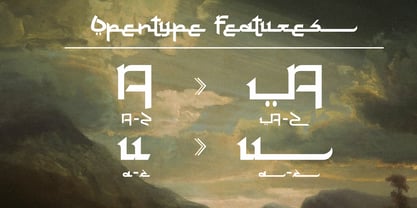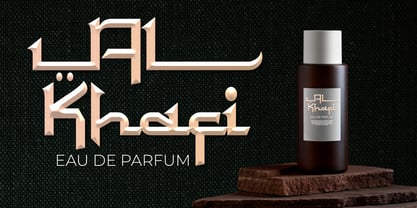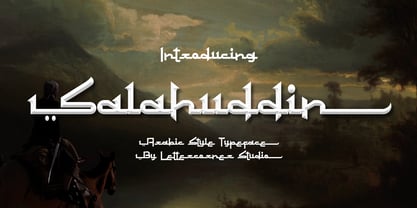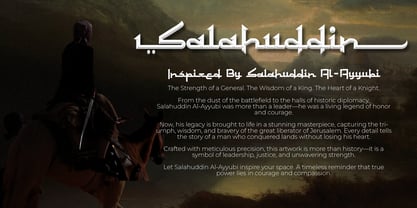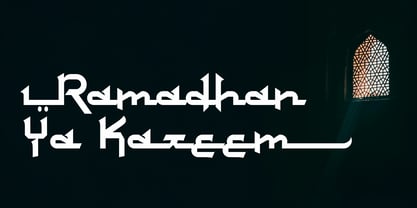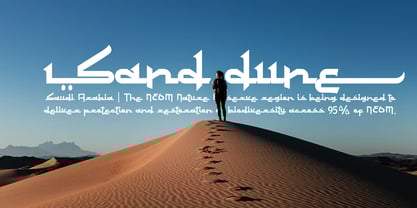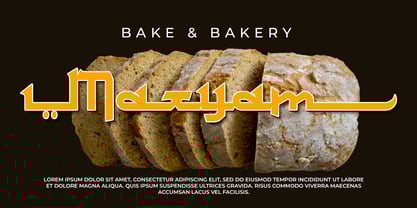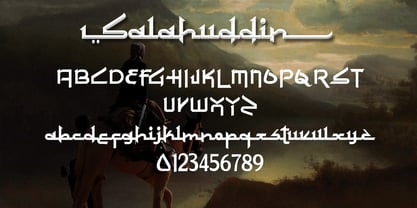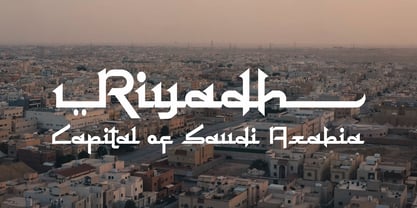
Salahuddin
by Mevstory Studio
The Salahuddin Font Family was designed by Muhammad Afif Ersya and published by Mevstory Studio. Salahuddin contains 1 styles.
Salahuddin arabic font took the ethnic look of arabic typeface, it with solidity of script font
Suit perfectly for website headline, poster, travelling magazine, and so on.
Designers: Muhammad Afif Ersya
Publisher: Mevstory Studio
Foundry: Mevstory Studio
Design Owner: Mevstory Studio